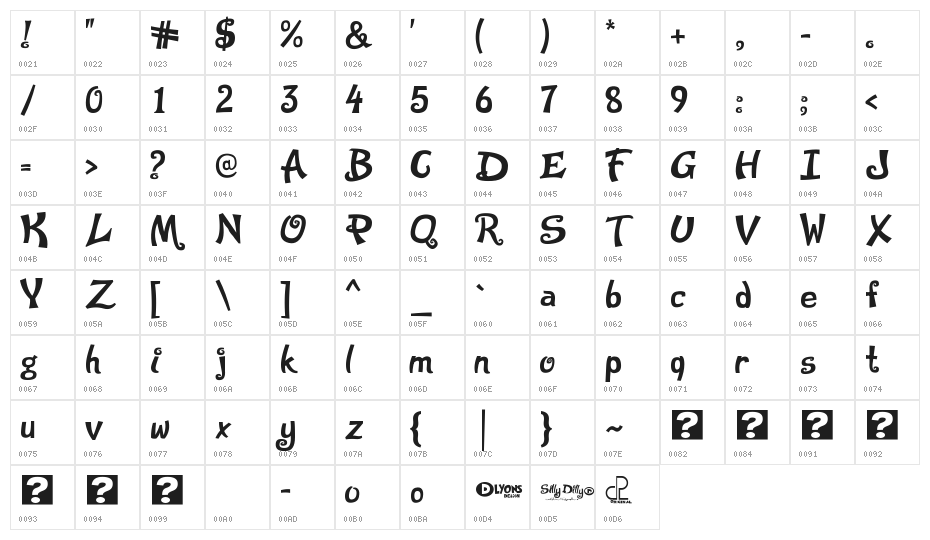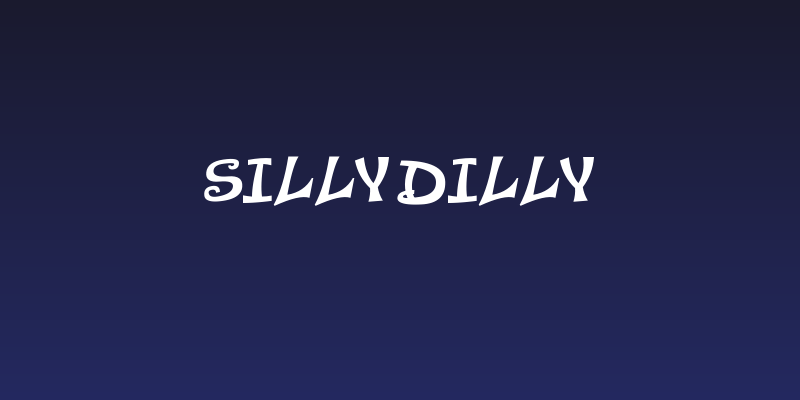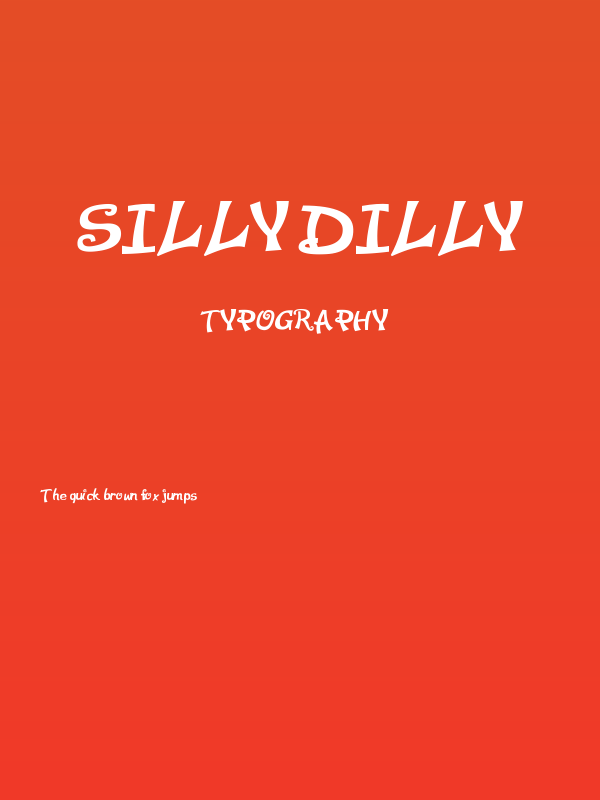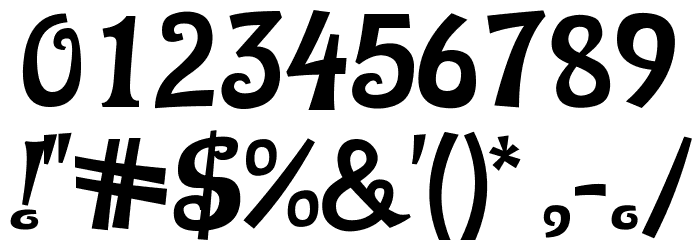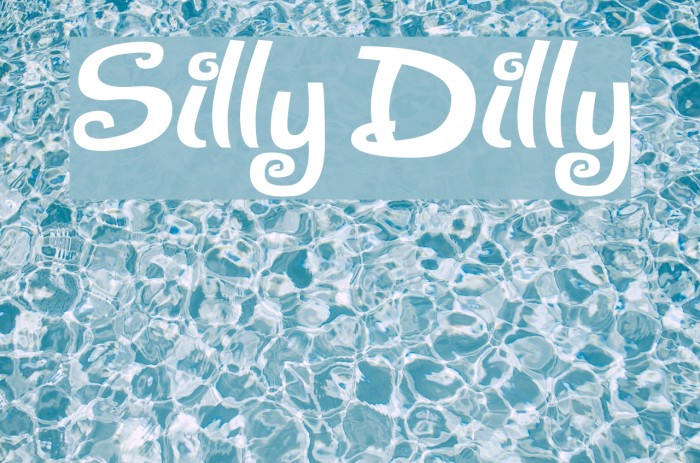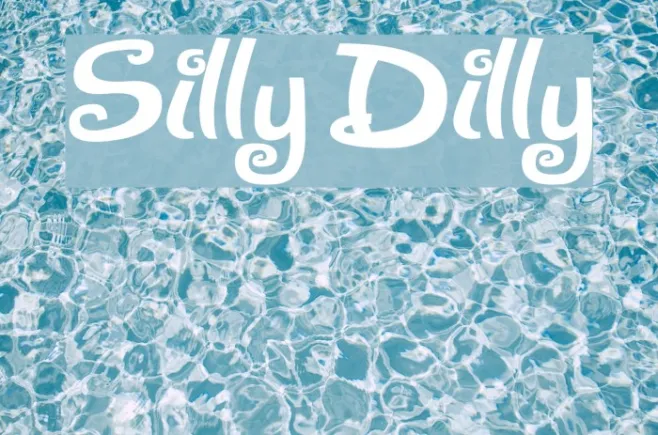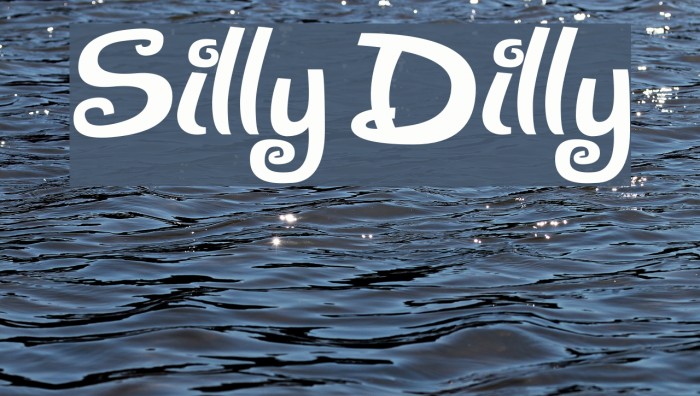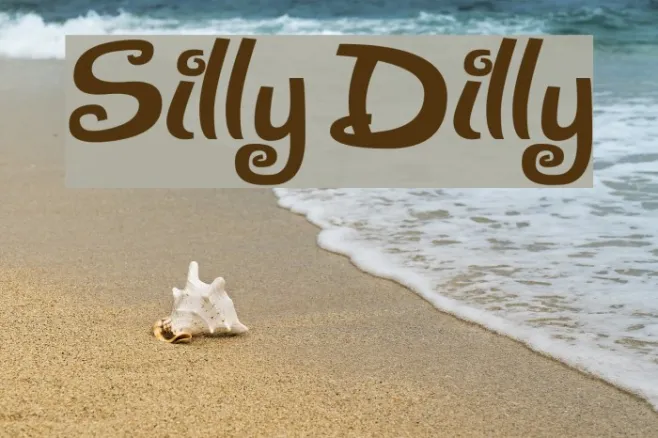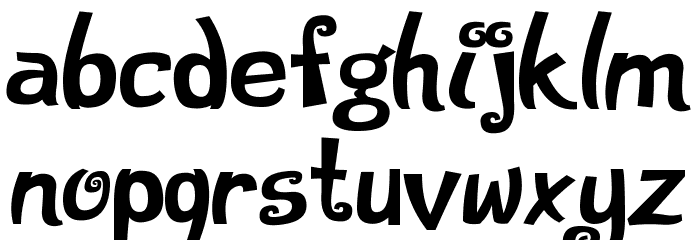
Silly Dilly Font
Silly Dilly Description
This playful and whimsical font features a unique, curly design that adds a sense of fun and creativity to any project. The letters have an exaggerated, almost cartoonish style with varying stroke widths that give them a lively and dynamic appearance. The uppercase letters are bold and prominent, while the lowercase letters maintain a consistent, flowing style. Numbers and special characters are equally expressive, making this font versatile for various uses. Its distinctive character makes it ideal for projects that require a touch of humor and lightheartedness.
| Overall Style | Whimsical, Playful |